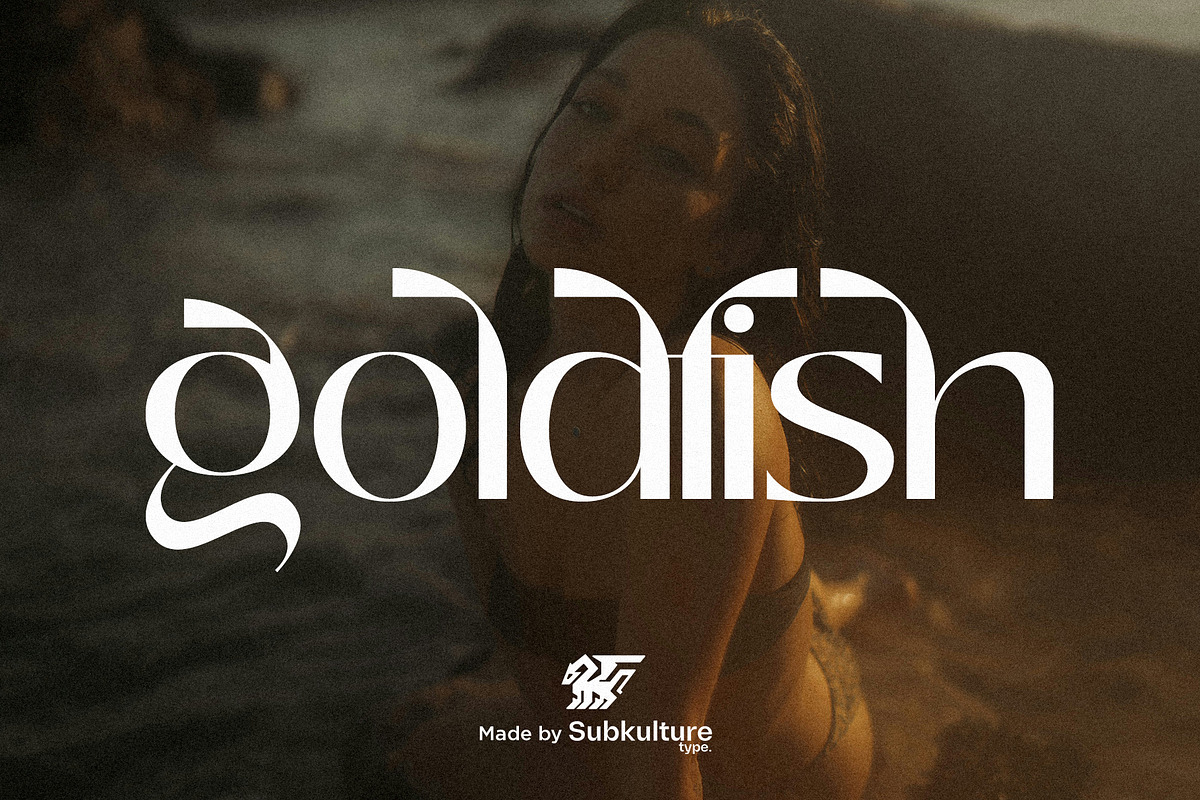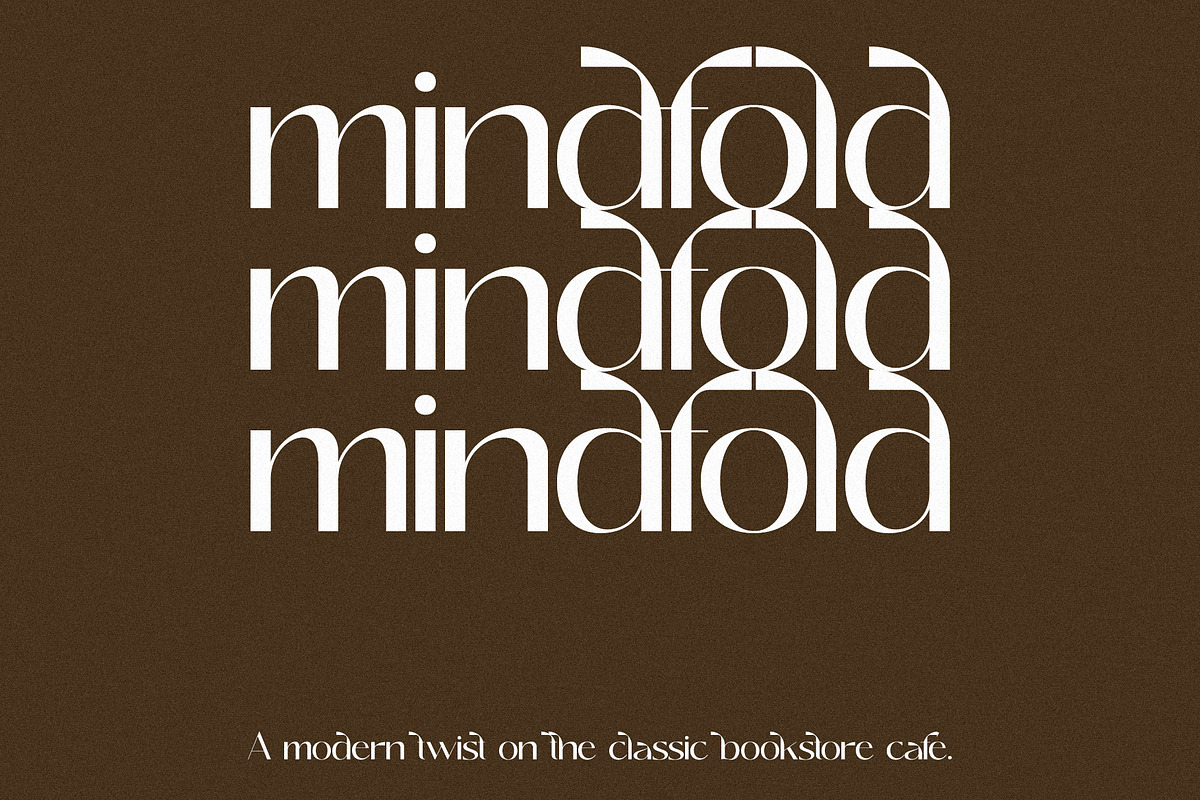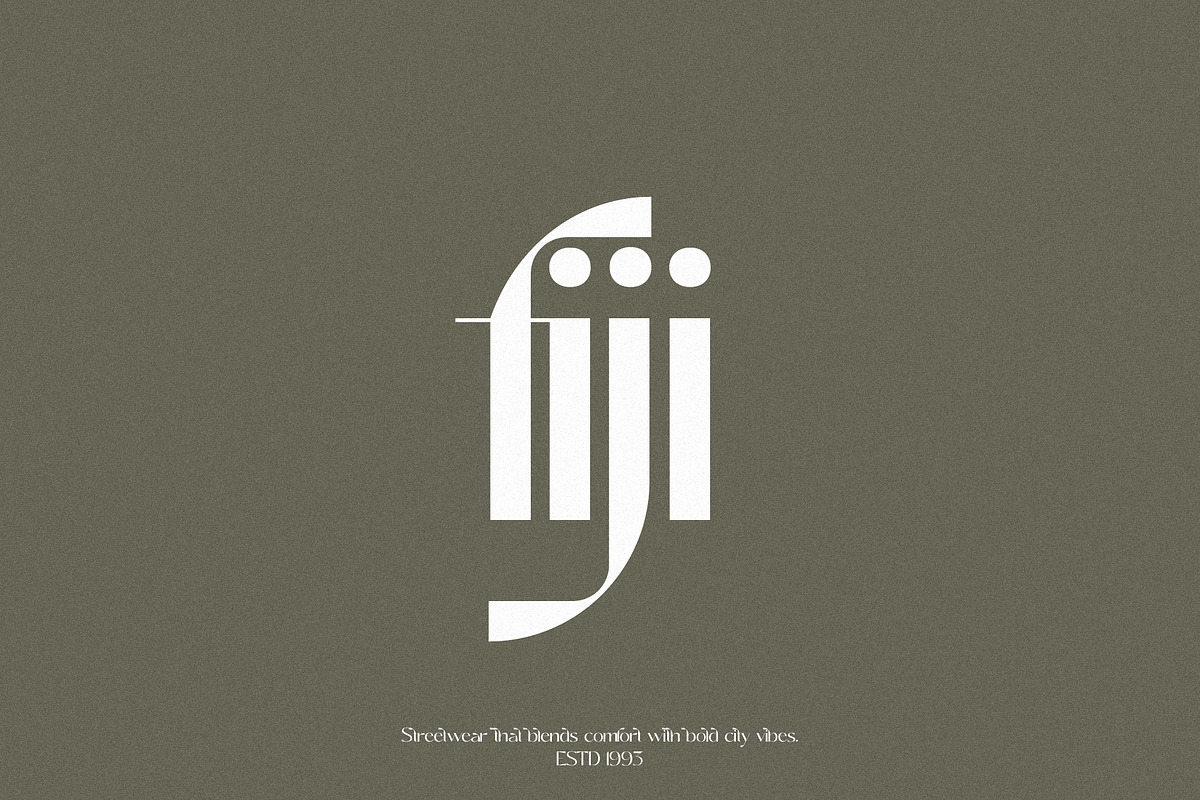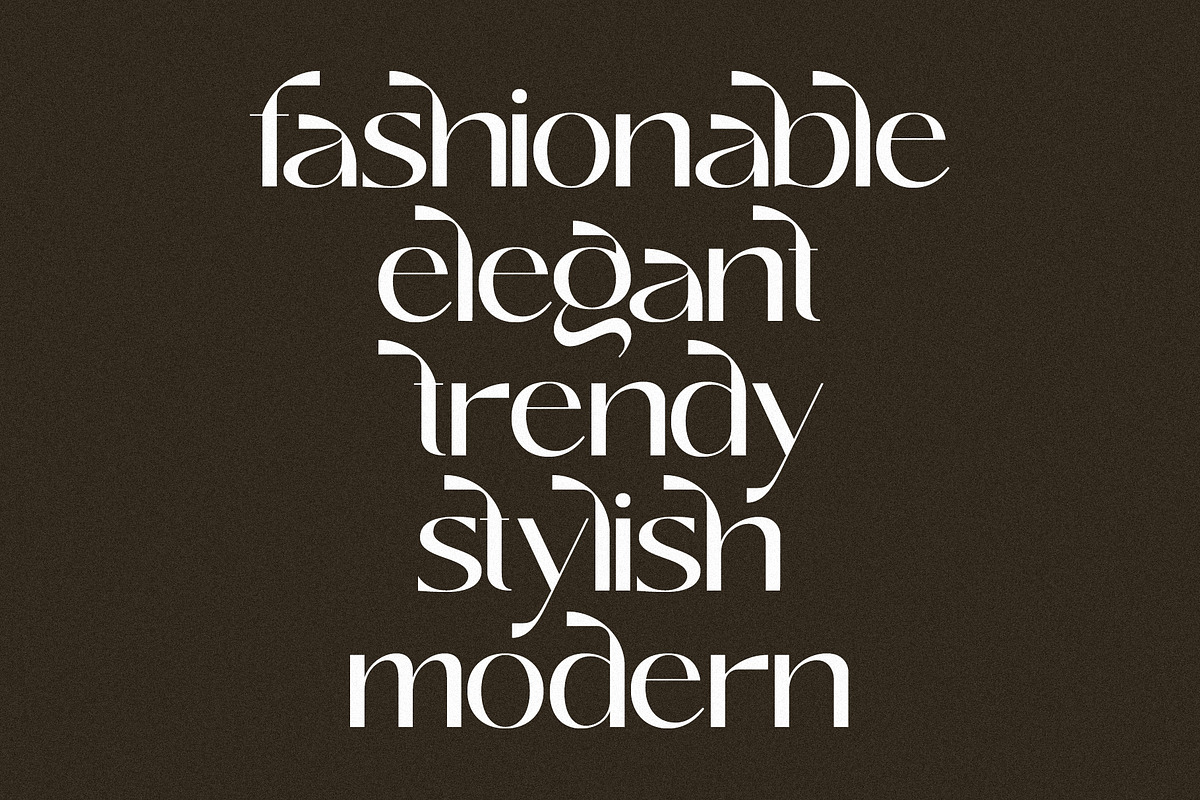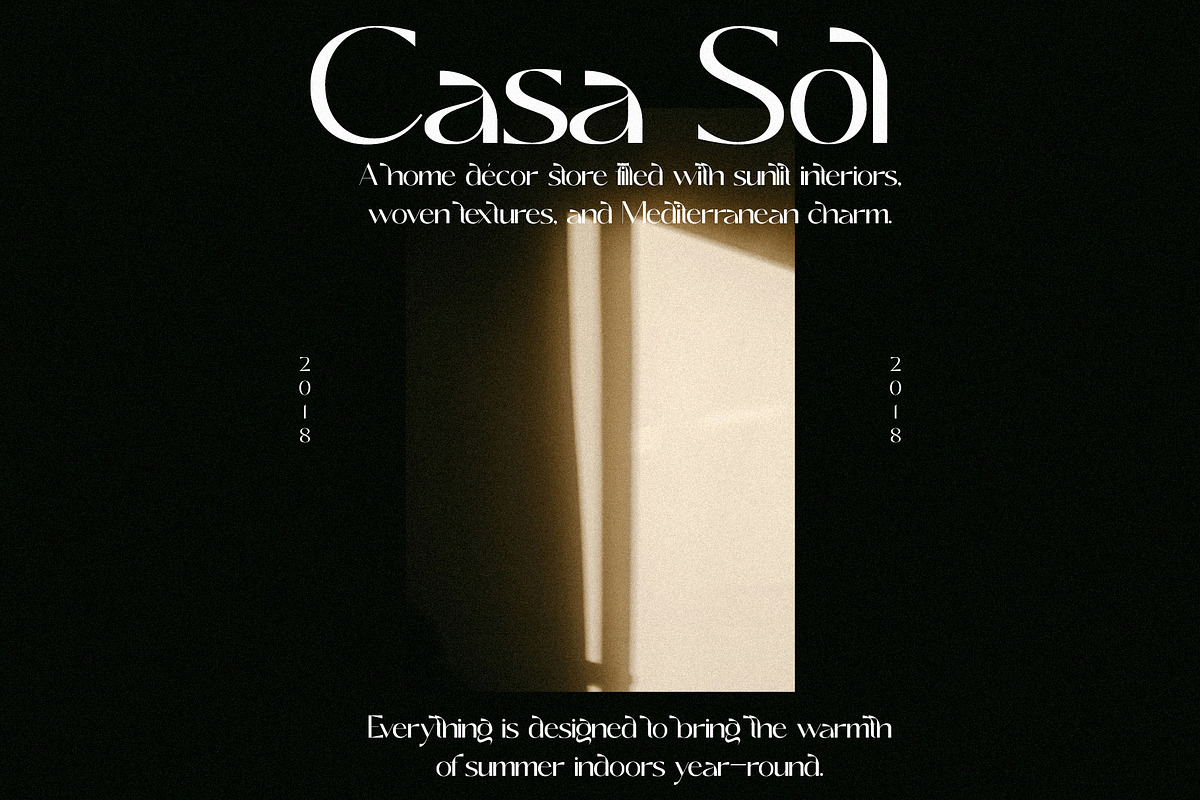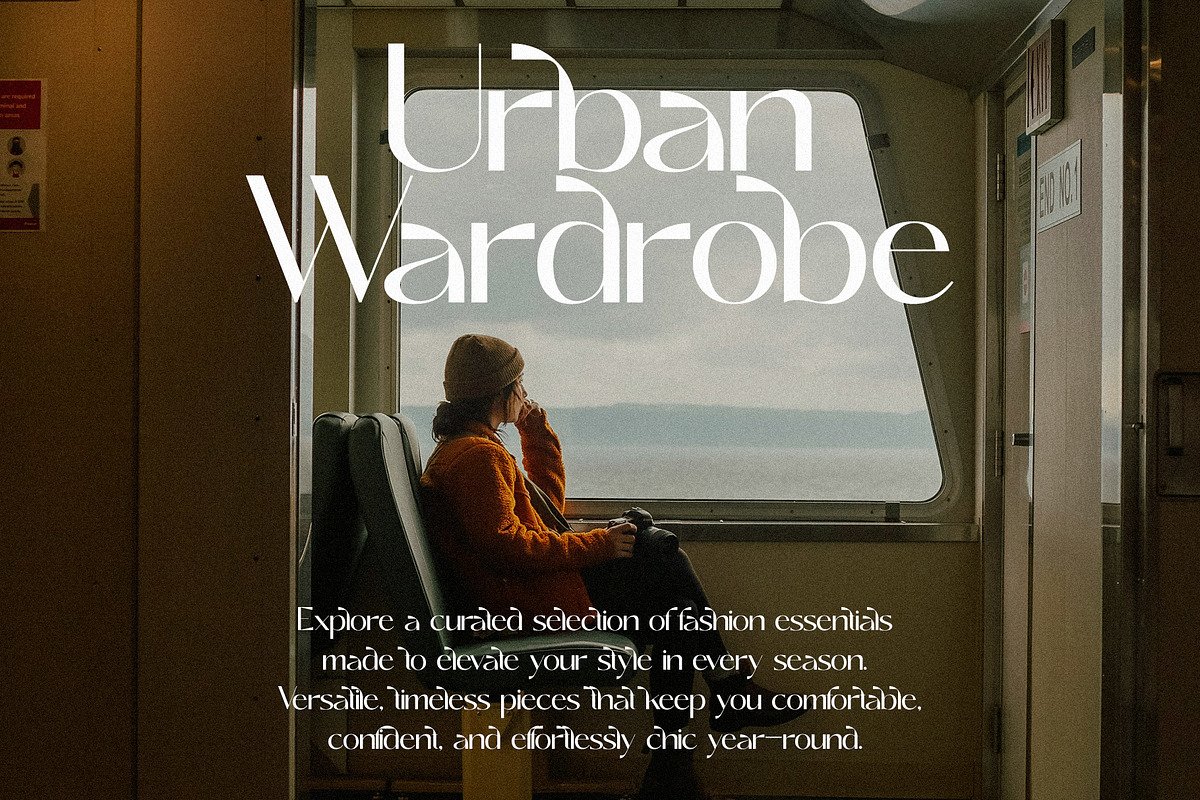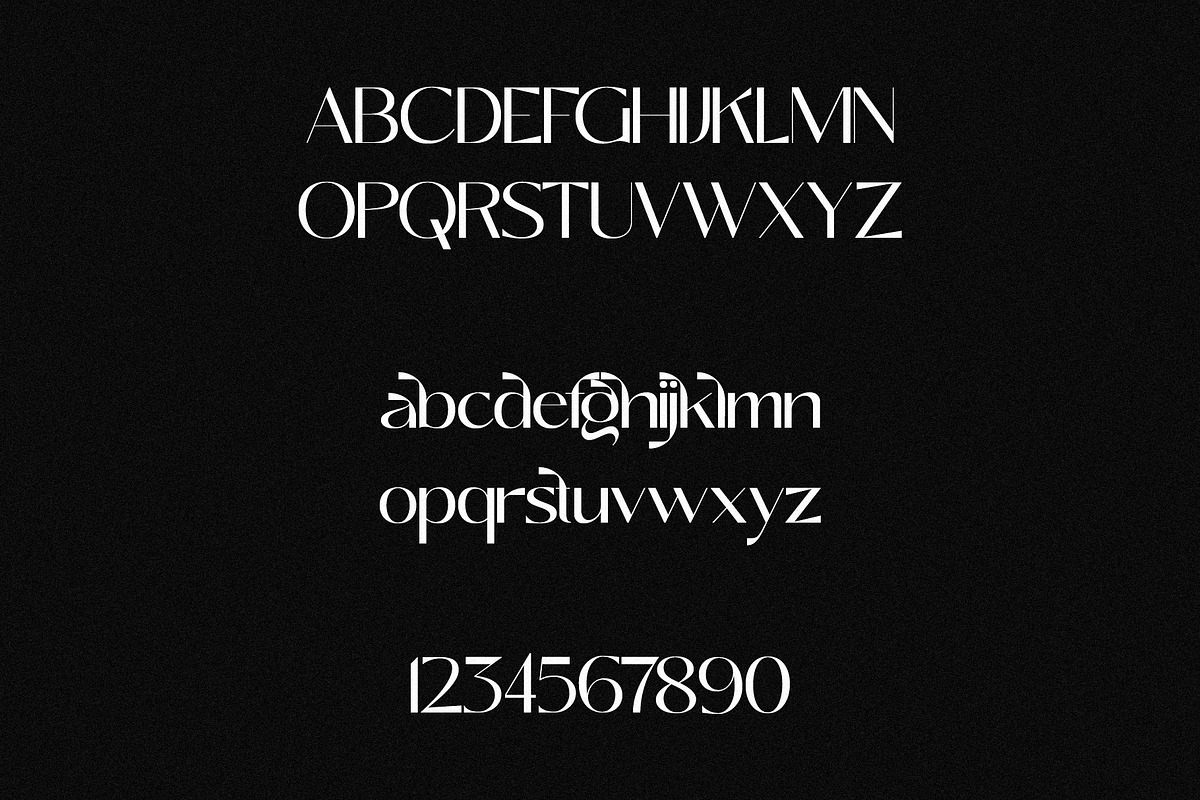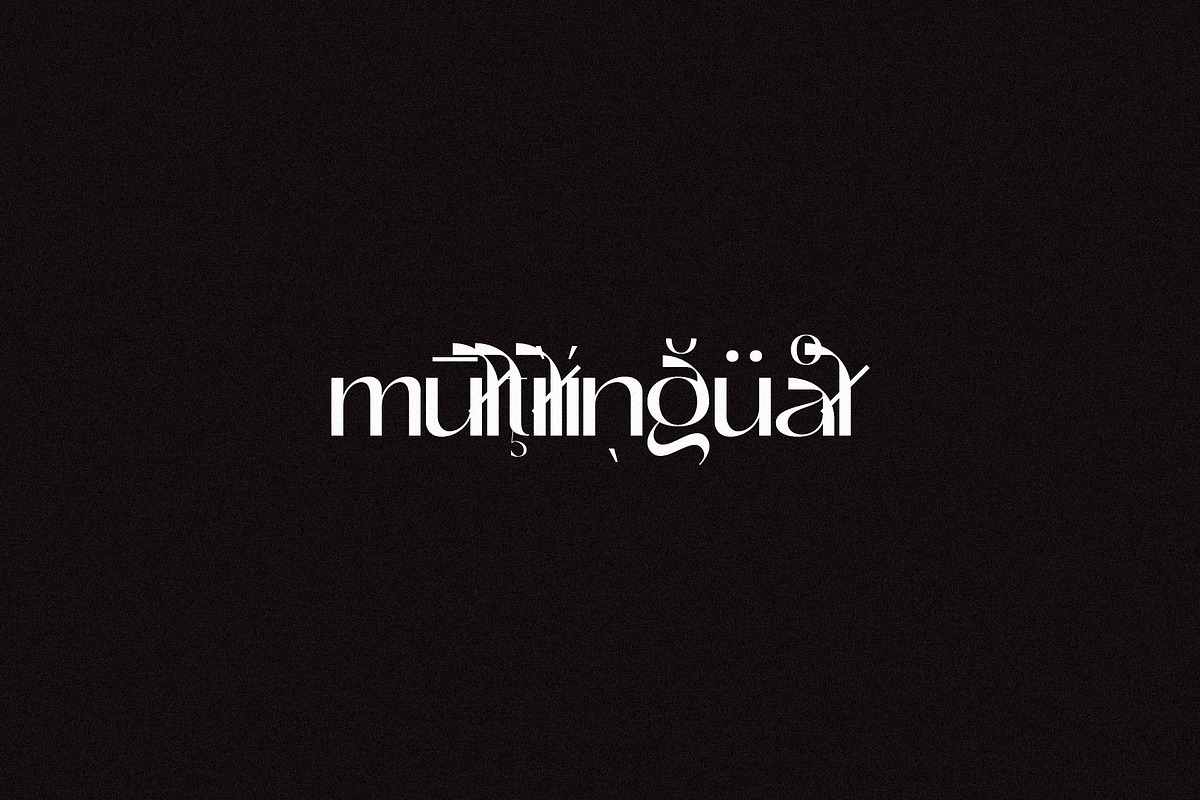
Goldfish - Elegant & Chic Sans Serif
Goldfish - Elegant & Chic Sans Serif is a refined and stylish typeface that exudes modern sophistication. With its sleek lines, graceful curves, and balanced proportions, it strikes the perfect harmony between contemporary minimalism and high-end elegance. Ideal for upscale branding, editorial layouts, luxury packaging, or any design project that demands a sense of refinement, Goldfish brings an air of timeless chic to both headlines and body text. Whether for print or digital media, this versatile sans serif creates a polished, professional impression, making it the perfect choice for those who seek to elevate their designs with understated beauty.
Goldfish features uppercase & lowercase letters, numbers & symbols, multilingual support, over 300+ glyphs.